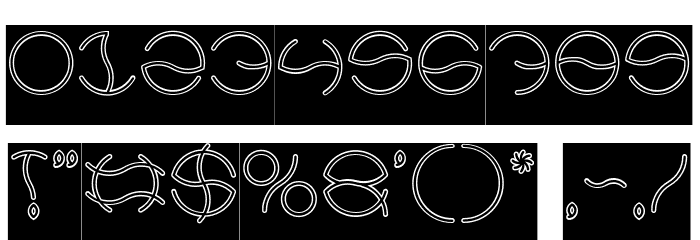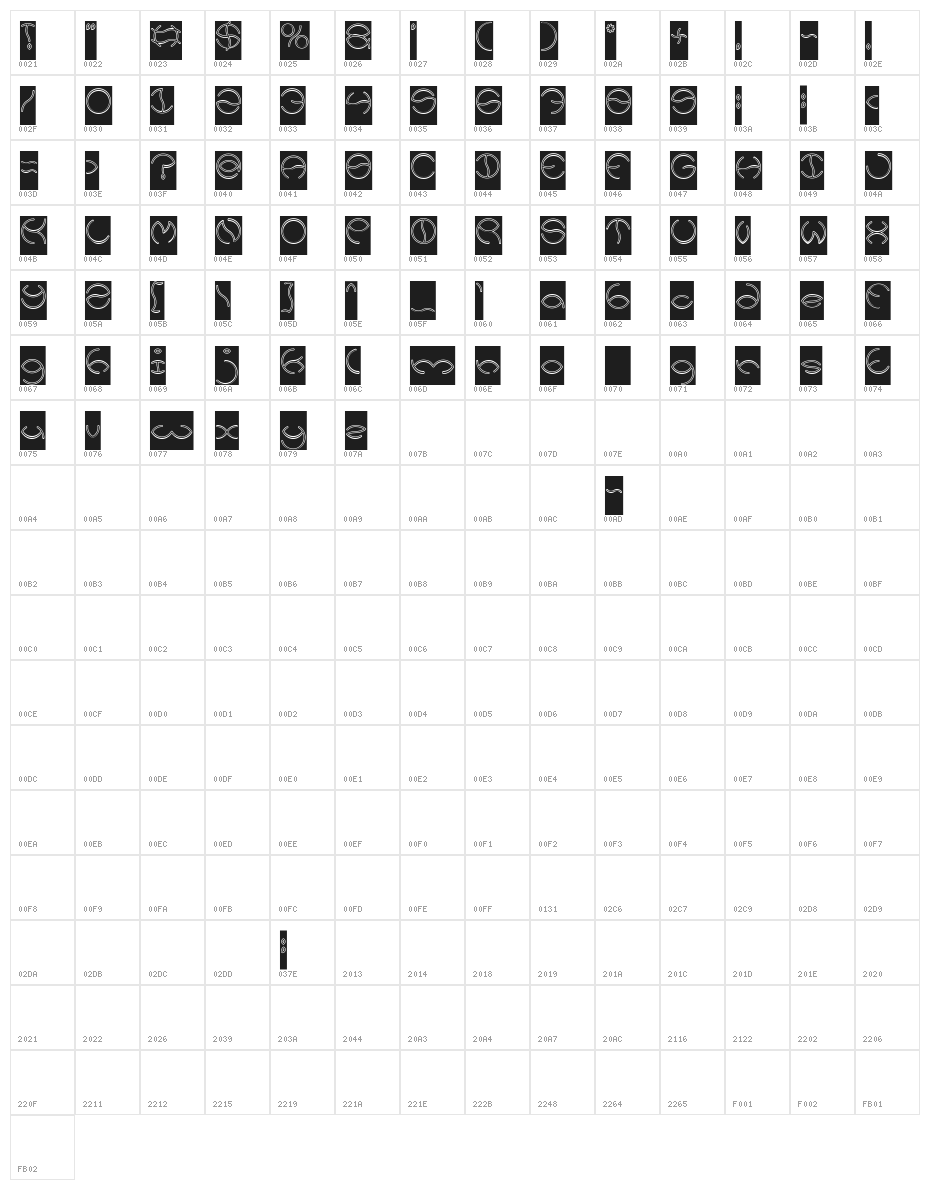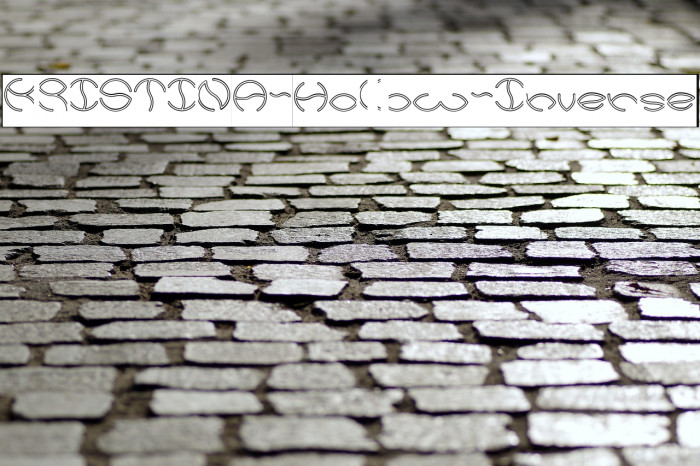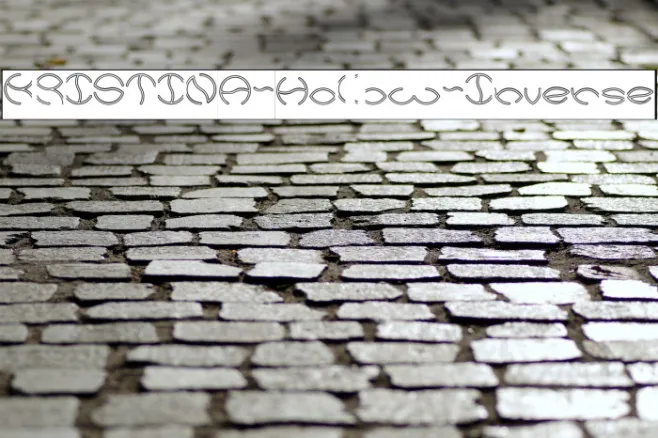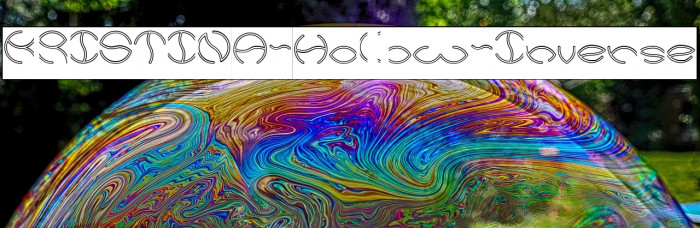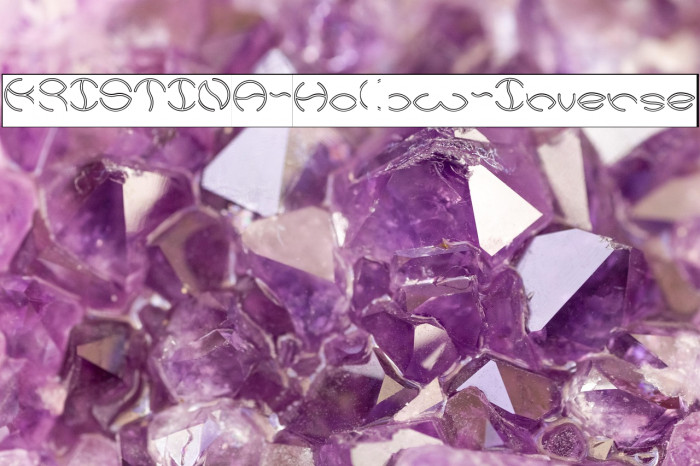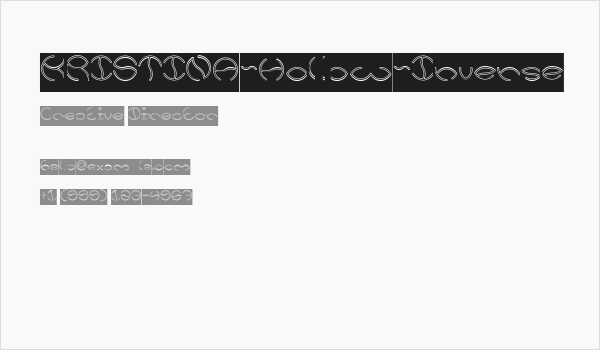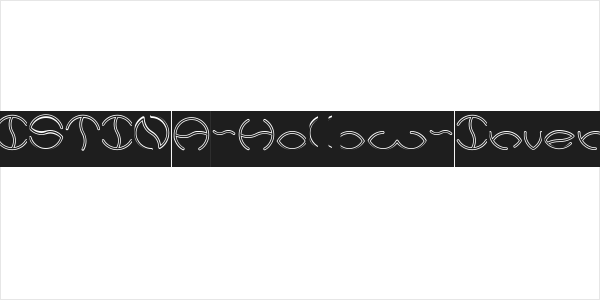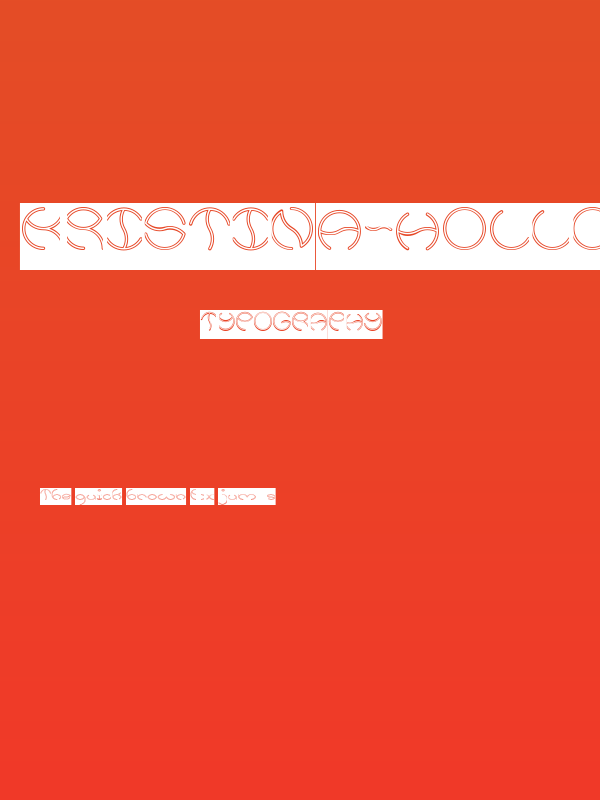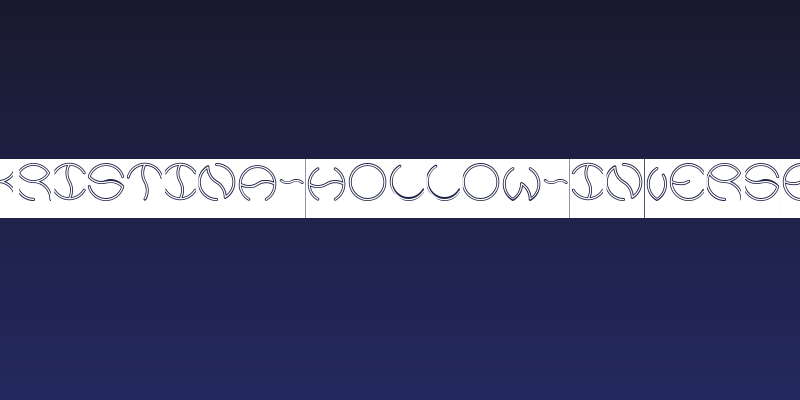
KRISTINA-Hollow-Inverse Font
KRISTINA-Hollow-Inverse Description
This font features a unique hollow design with an inverse style, where the strokes are outlined, creating a distinct and modern appearance. The characters are crafted with smooth, flowing lines that form circular and semi-circular shapes, giving it a futuristic and artistic vibe. The uppercase and lowercase letters maintain a consistent style, with the lowercase being slightly more condensed. Numbers and special characters follow the same design principles, ensuring uniformity across the font. The overall look is both decorative and functional, making it suitable for creative projects.